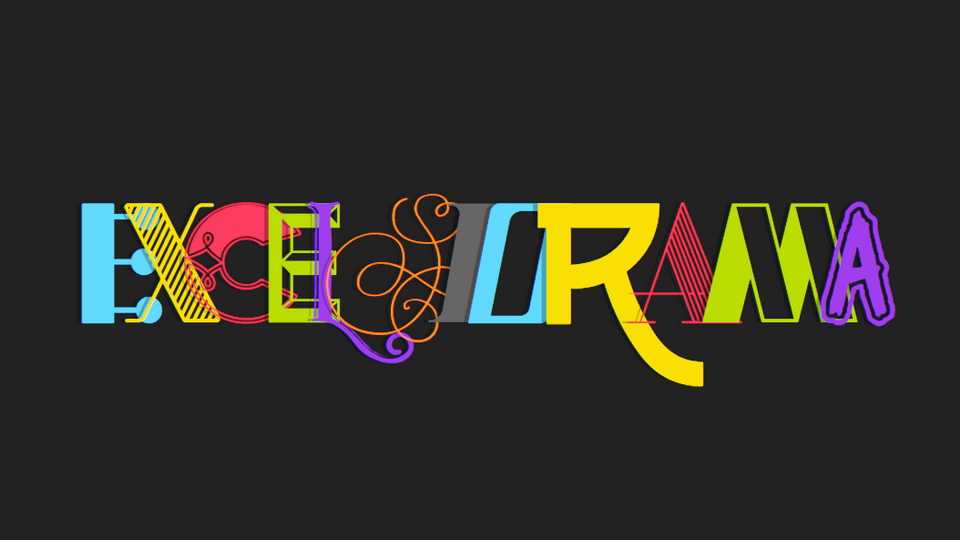
Download Excelsiorama font, a collaborative typeface made by 30+ designers in Upstate New York! Each letter of Excelsiorama has its own unique character, creating a stunning effect together.
Designer: Tyler Finck